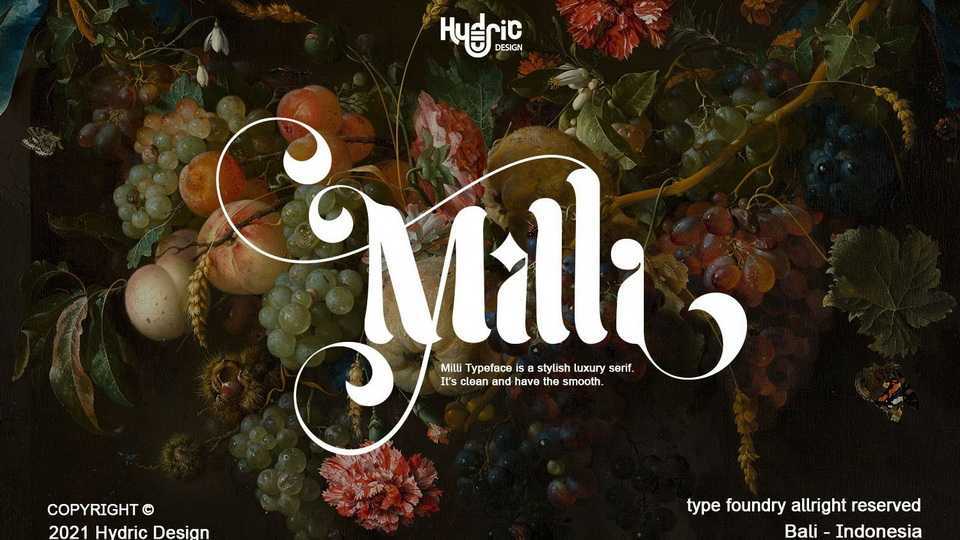
Download Milli font, a stylish, luxury serif typeface. Its clean and incredibly versatile style makes Milli font the ideal choice for each of your favorite designs.
Designer: Hydric Design